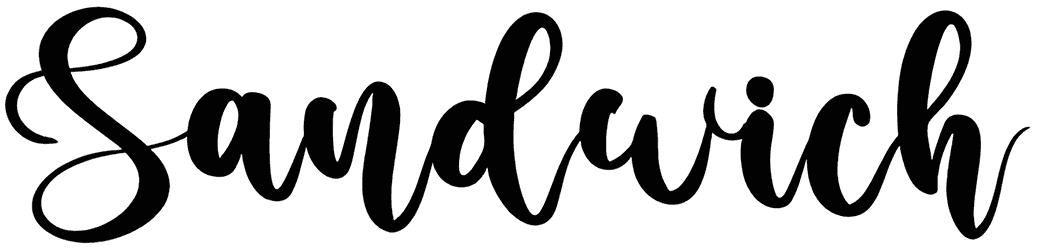
Sandwich Font
Whether you’re creating a watermark, an invitation, a poster, etc., Sandwich can help you return to a more positive state of mind. This script font has a romantic style that works well with other design elements and has gotten you pumped up again.